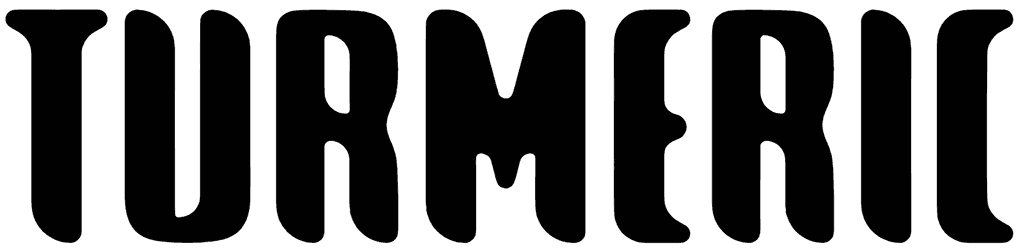
Turmeric Font
Are you interested in typefaces and want to start a digital project? Turmeric is an exciting proposition for you. This eroded font has relatively thick and formal letters that can appear brilliantly in magazine headlines, social media banners, and posters.
The absence of small letters isn’t felt at all due to the power of this coffee font in successfully implementing projects with different topics. So go ahead and create an entirely different design for your resume by using this fancy font.